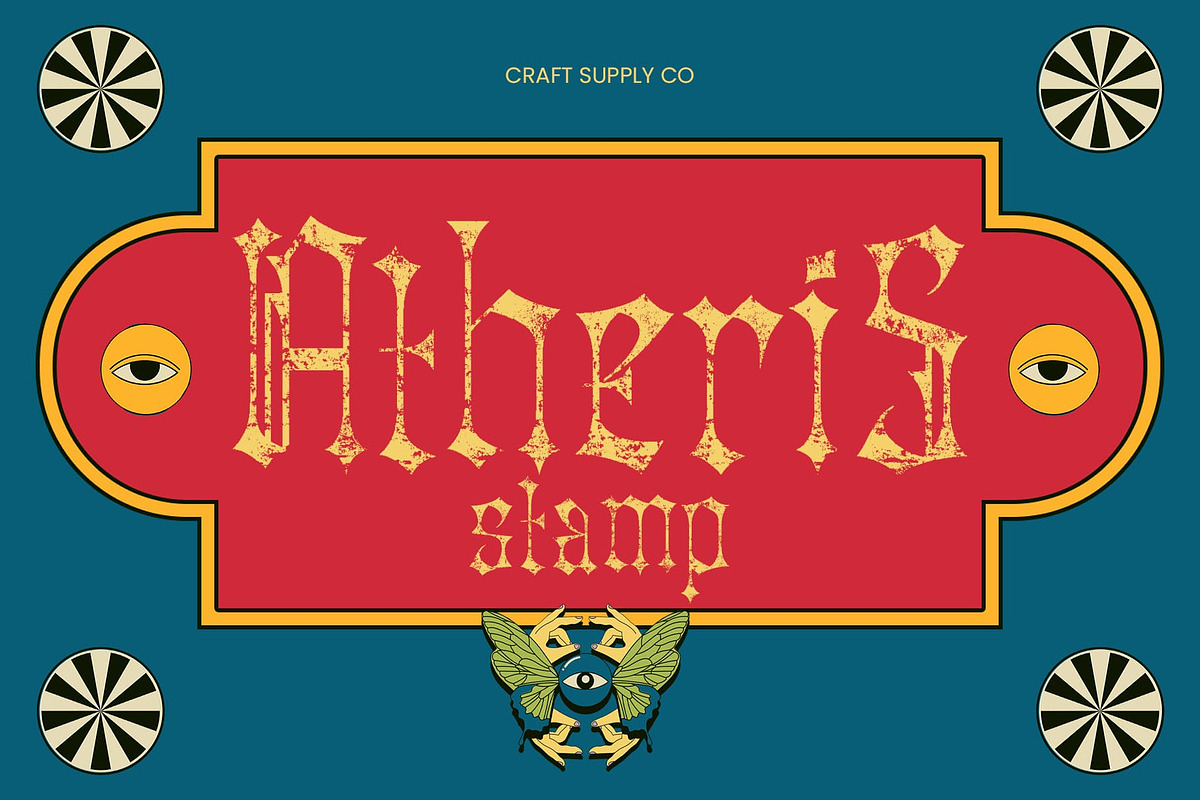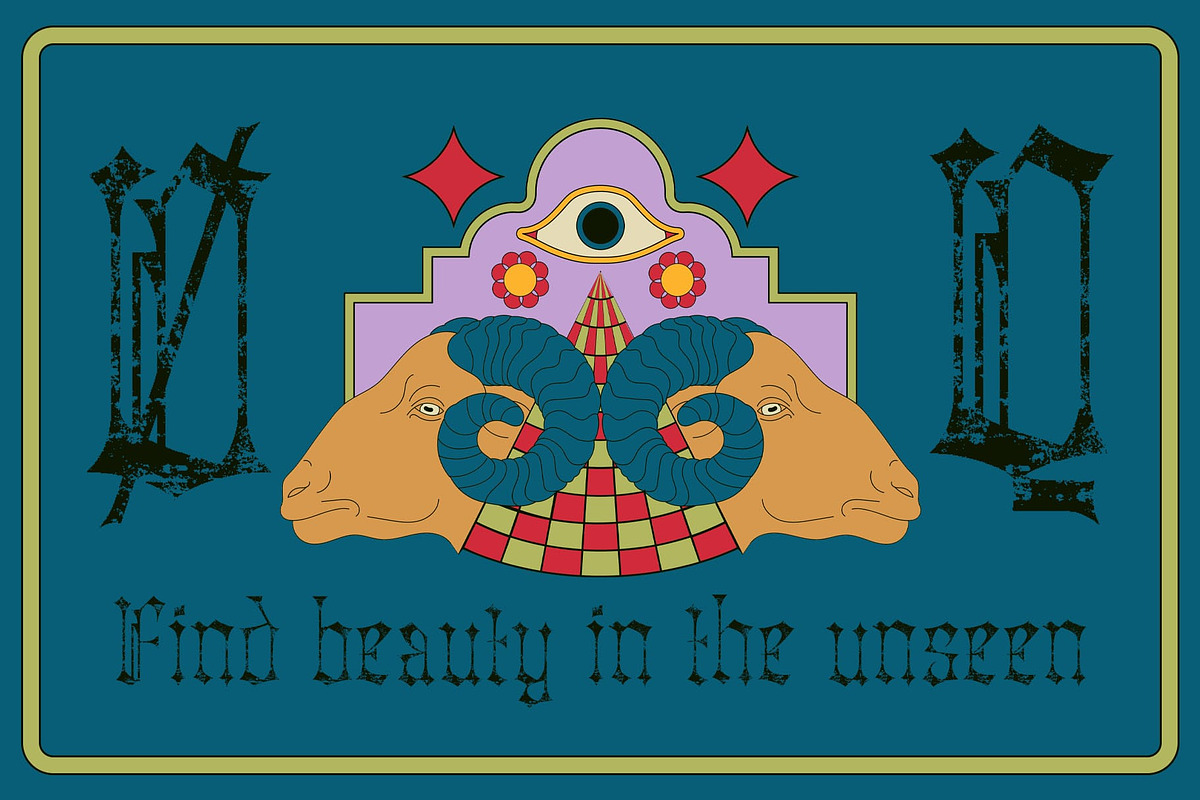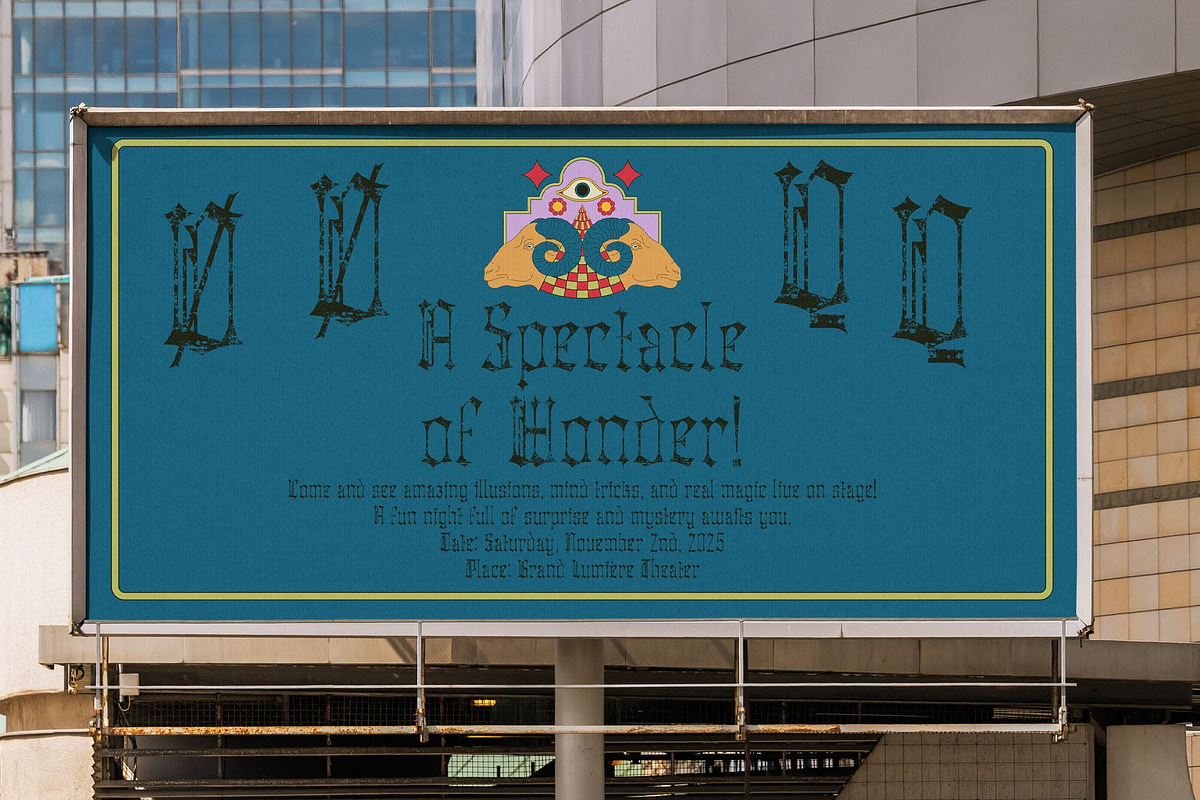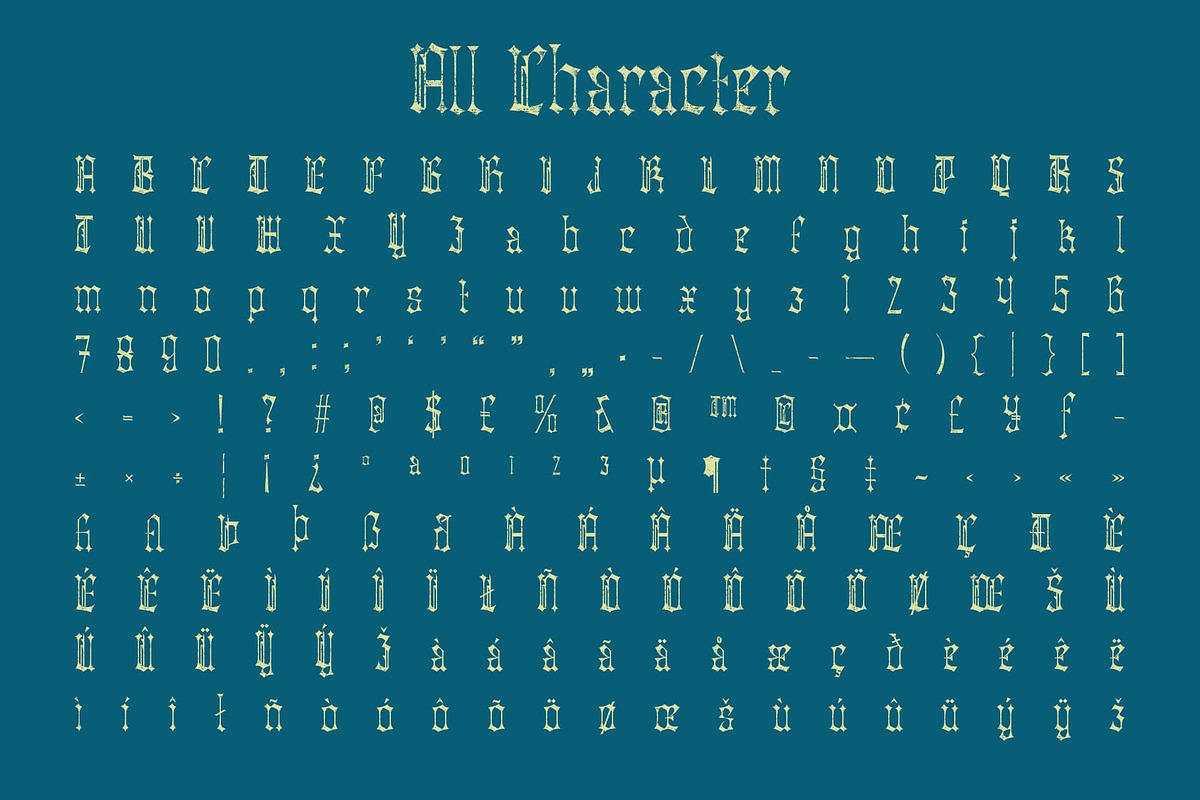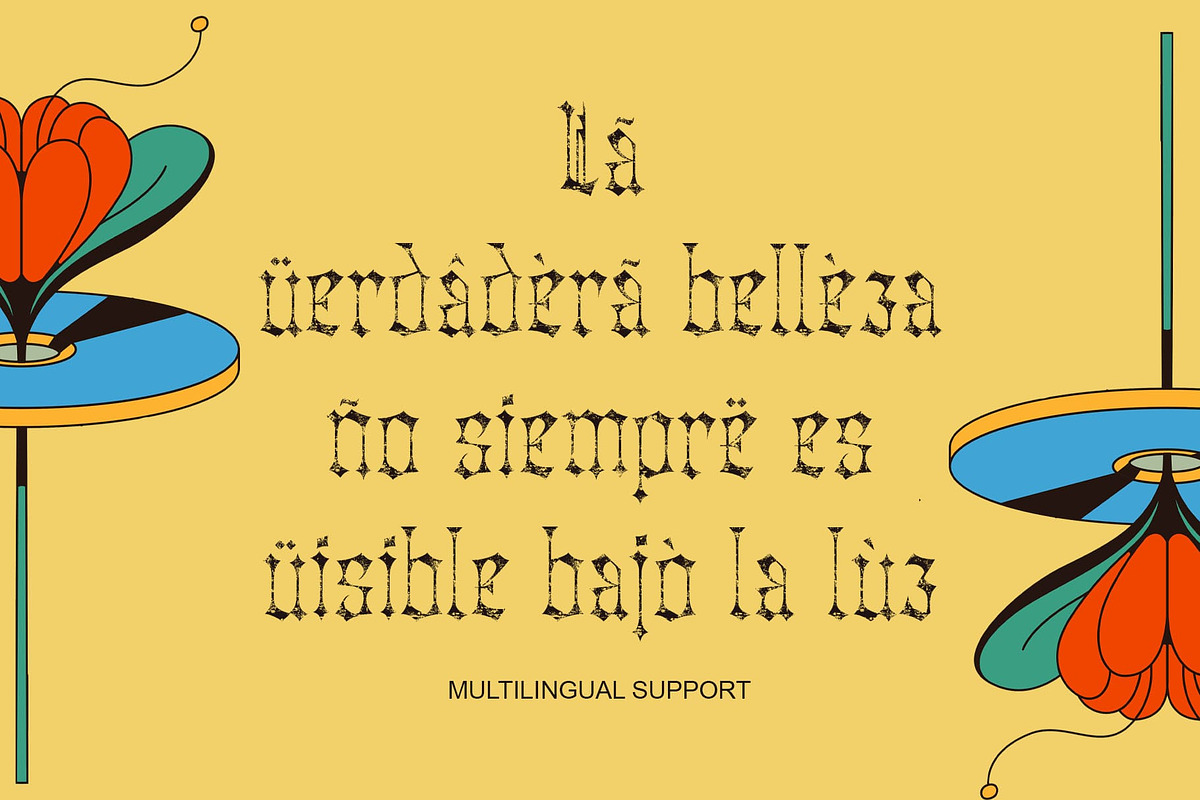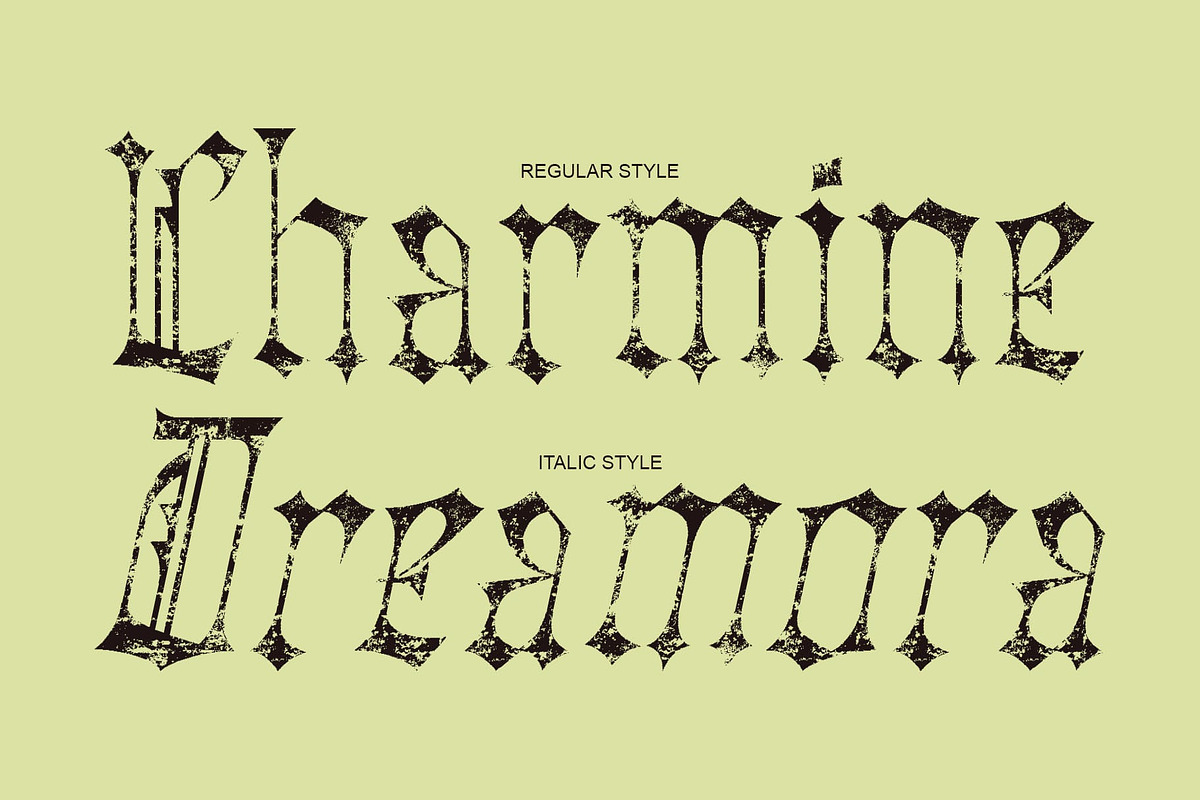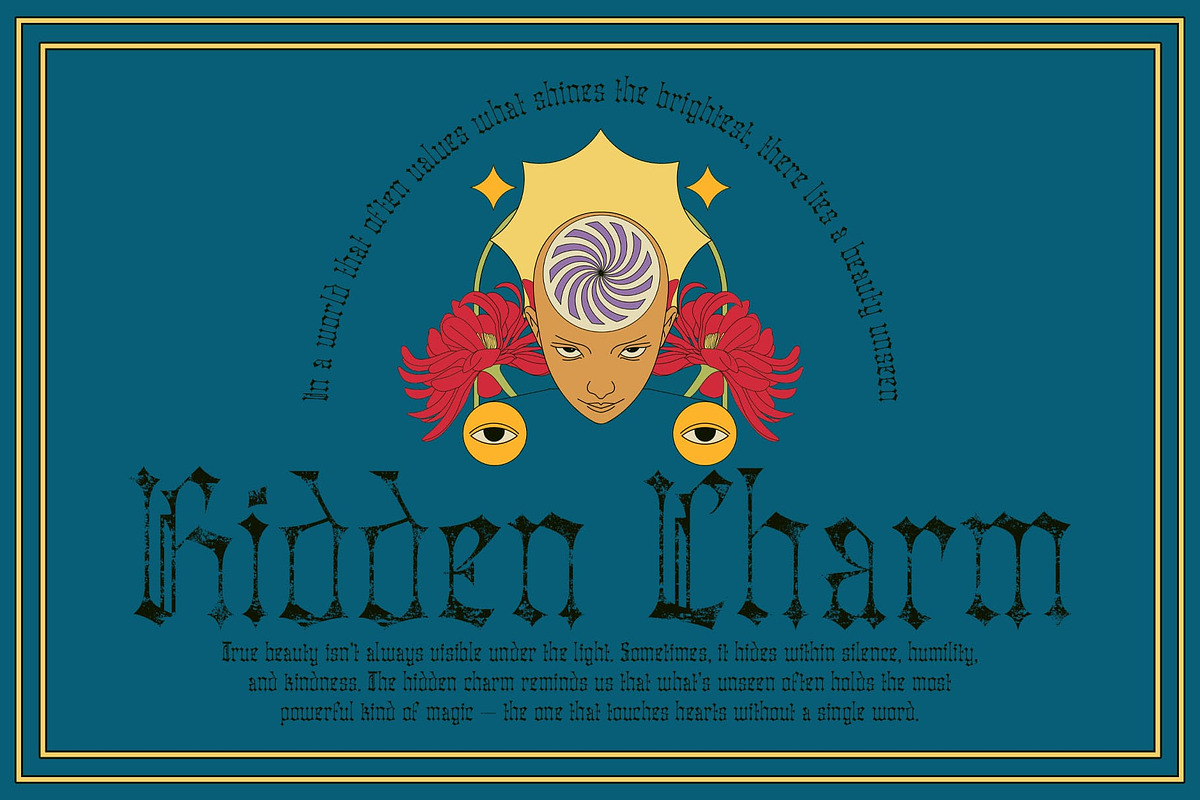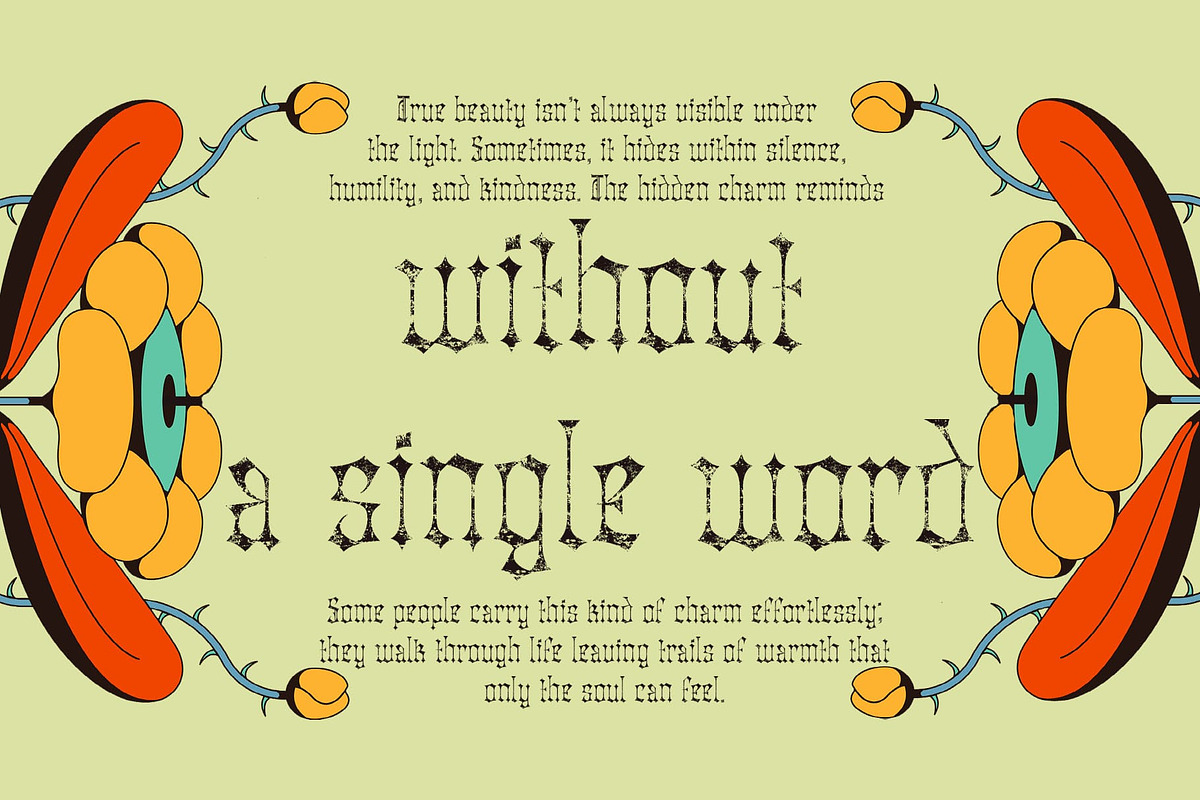
Atheris Stamp
Atheris Stamp – Decorative Blackletter Font with Stamp Texture: Dark Elegance with Handcrafted Depth
Bold Tradition with a Mysterious Edge This is a decorative Blackletter font defined by its bold, dramatic strokes and gothic elegance. Its letterforms evoke the spirit of medieval artistry, combining historic richness with a refined, contemporary touch that commands attention in any setting.
Stamp Texture for Handcrafted Authenticity The stamp effect adds a handmade, textured finish that deepens the font’s visual impact. This tactile detail enhances its dramatic presence, creating an authentic, time-worn aesthetic that feels both powerful and expressive perfect for designs that seek character and craftsmanship.
Ideal for Bold and Atmospheric Designs Designed for book covers, posters, branding, or artistic projects, this it delivers a sense of mystery, strength, and sophistication. Its distinctive style makes it ideal for works that aim to convey heritage, intensity, or gothic beauty.
Classic Aesthetic with Modern Expression This font bridges the gap between historic blackletter tradition and modern creativity. Its dramatic strokes and vintage texture combine to form a timeless yet distinctive typeface, perfect for captivating, bold, and memorable visual identities.